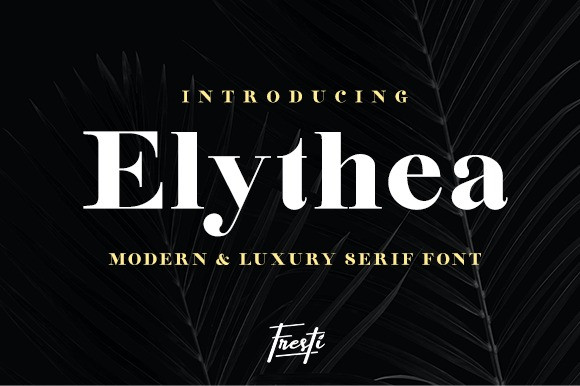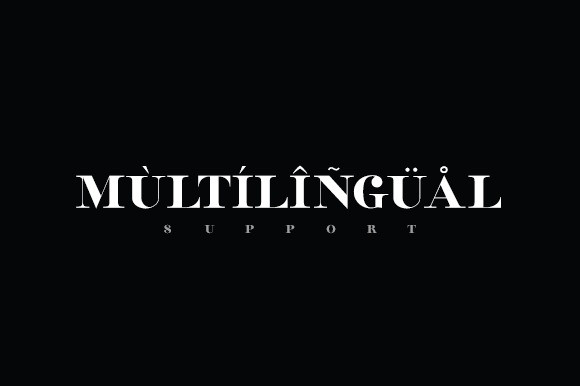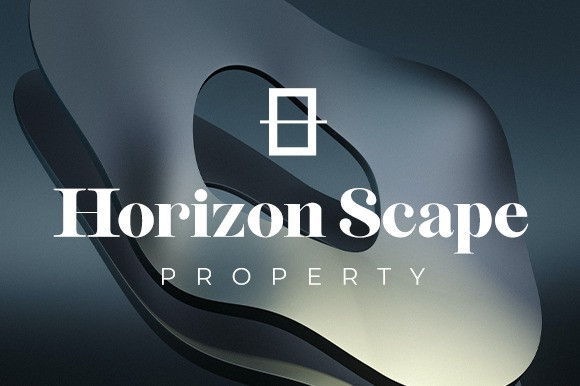
Elythea Font
Elythea is a modern and fancy serif font with distinctive features and a superb style. Its low-stroke contrast with slightly chubby characters emphasizes its luxurious style. Get creative with it, and you’ll love the results!